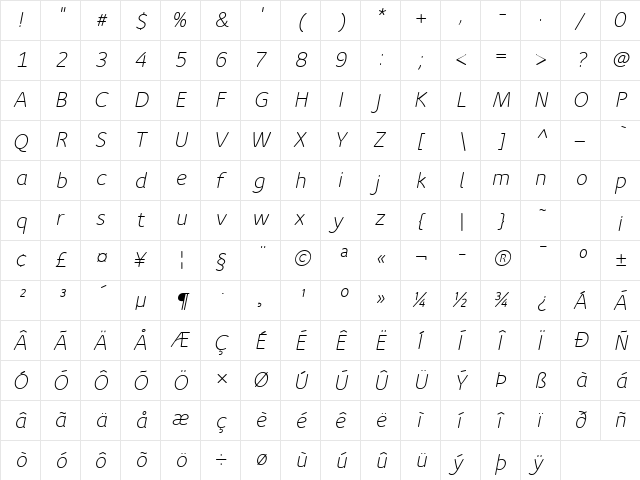
SpeakTF-RegularItalic Regular
| Foundry | FSI FontShop International GmbH |
| Designer | Jan Maack |
SpeakTF-RegularItalic takes a measured approach to typography — its balanced proportions and neutral character make it a reliable workhorse for both digital and print work. The slanted form adds forward momentum and visual energy.
Pro Tip: Try SpeakTF-RegularItalic for annotation and caption copy alongside an upright companion — the contrast in angle creates a dynamic but ordered typographic system.